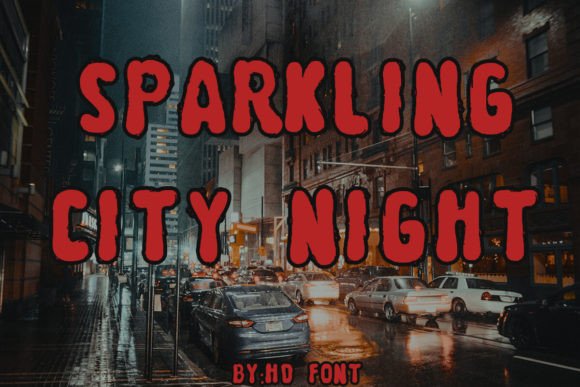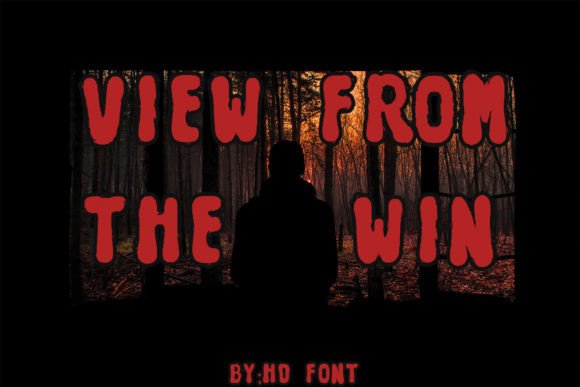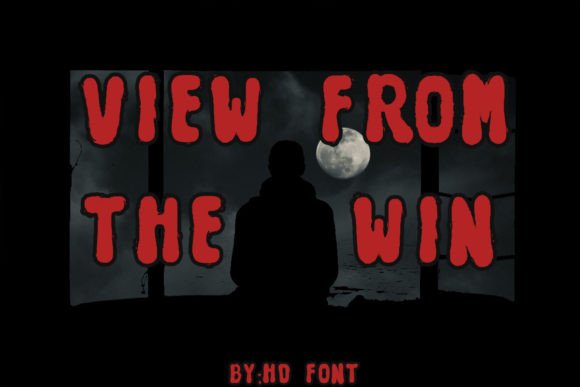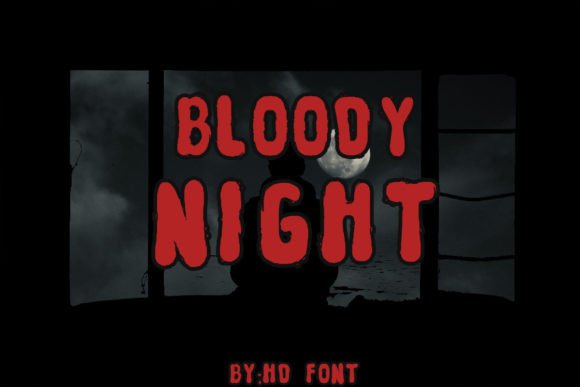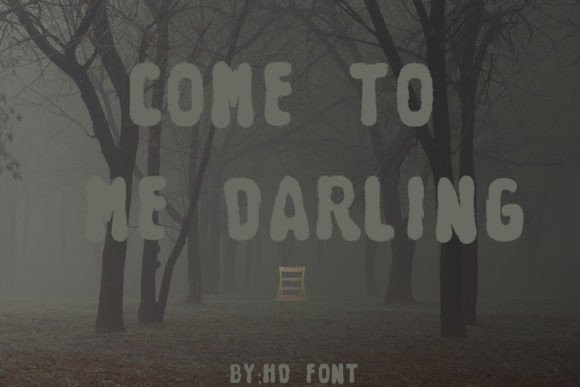
Crocks Font: The Ultimate Display Font for Modern Designers and Crafters
In the world of typography, fonts play a crucial role in conveying messages, expressing emotions, and creating visual identities. For designers, crafters, and digital artists, finding the perfect font can be a daunting task. However, if you’re looking for a bold, trendy, and versatile font, look no further than Crocks Font. In this article, we’ll explore the features, benefits, and uses of Crocks Font, and why it’s becoming a favorite among designers and crafters.
What is Crocks Font?
Crocks Font is a bold, all-caps display font that exudes trendiness and style. Its unique design makes it perfect for a wide range of applications, from digital designing and presentations to crafting and greeting card making. With its sleek lines, bold curves, and modern aesthetic, Crocks Font is sure to grab attention and make your designs stand out.
Key Features of Crocks Font
- Bold and Eye-catching: Crocks Font is designed to make a statement. Its bold and chunky design ensures that your text will stand out, whether it’s on a digital screen or a physical surface.
- All-caps: The font features all-caps letters, which gives it a strong and confident look. Perfect for headings, titles, and emphasis.
- Trendy and Modern: Crocks Font has a distinctly modern feel, making it ideal for designers and crafters who want to create fresh and contemporary designs.
- Versatile: Whether you’re working on a digital project, a craft, or a presentation, Crocks Font adapts seamlessly to different mediums and applications.
Uses of Crocks Font
Crocks Font is incredibly versatile and can be used in a variety of contexts. Here are some ideas to get you started:
- Digital Designing: Use Crocks Font to create stunning social media graphics, blog headers, and digital art.
- Crafting: Add a modern touch to your handmade crafts, such as journals, planners, and DIY projects.
- Presentations: Make your presentations more engaging and professional with Crocks Font.
- Greeting Cards: Create eye-catching and heartfelt greeting cards for special occasions.
Benefits of Using Crocks Font
So, why choose Crocks Font for your design projects? Here are some benefits:
- Time-saving: With Crocks Font, you can create stunning designs quickly and efficiently.
- Easy to Read: The font’s bold design ensures that your text is easy to read, even from a distance.
- Customizable: Crocks Font can be easily customized to fit your brand’s style and aesthetic.
- Unique: Stand out from the crowd with Crocks Font’s distinctive and modern design.
Tips for Using Crocks Font Effectively
To get the most out of Crocks Font, here are some tips:
- Pair with Other Fonts: Combine Crocks Font with other fonts to create visually appealing contrasts.
- Experiment with Colors: Try out different colors and gradients to add depth and interest to your designs.
- Keep it Simple: Don’t over-accessorize – let Crocks Font’s bold design speak for itself.
In conclusion, Crocks Font is a bold, trendy, and versatile display font that’s perfect for designers, crafters, and digital artists. With its unique design, ease of use, and customization options, it’s no wonder that Crocks Font is becoming a favorite among creatives. Whether you’re working on a digital project, a craft, or a presentation, Crocks Font is sure to elevate your designs and make them stand out. So why wait? Give Crocks Font a try today and experience the power of bold, modern typography!